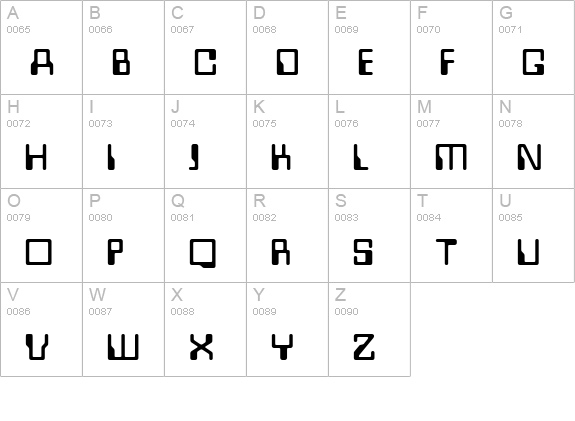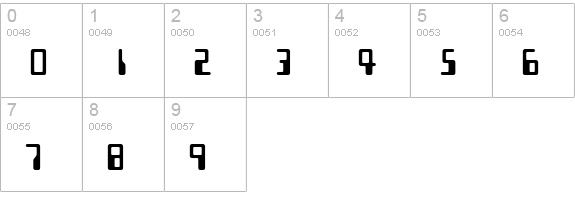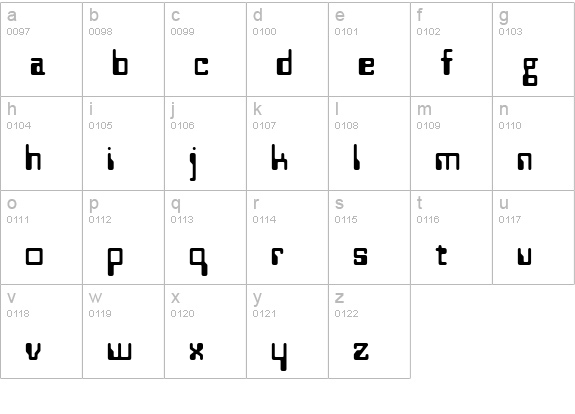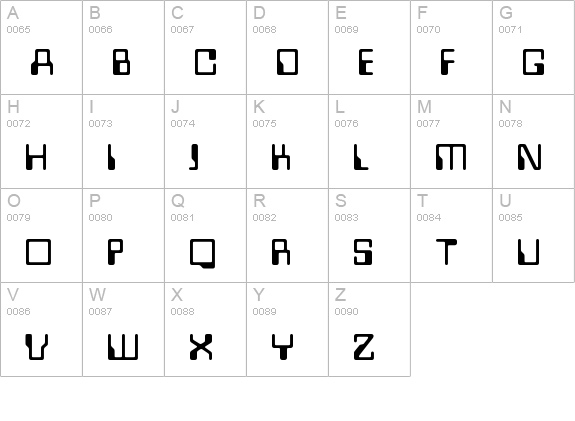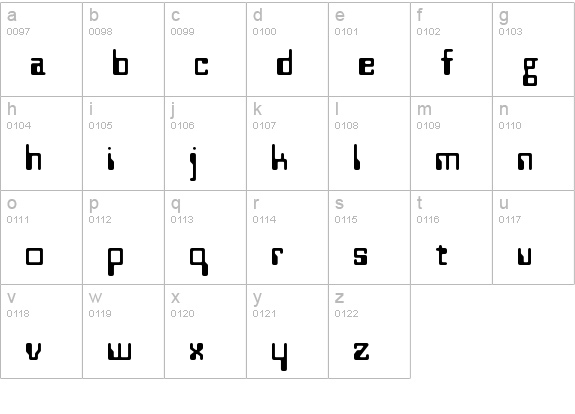
Westminster Font Details
Westminster font, a timeless and elegant typeface, brings a touch of sophistication to any design project. With its classic and refined letterforms, Westminster exudes a sense of tradition and refinement. Each letter is meticulously crafted, showcasing the perfect balance between sharp edges and gentle curves. This versatile font is suitable for a wide range of design applications, from elegant wedding invitations to professional business presentations. Its legibility and clarity make it an excellent choice for body text, while its bold and distinctive character shines in headlines and logos. One of the most appealing aspects of Westminster font is that it is freely available to download at FontsMarket.com. This means that designers and creatives can access and utilize this exceptional font without any financial constraints. Whether you're a professional designer or an aspiring artist, Westminster font is at your fingertips, ready to elevate your creative projects to new heights. With its timeless appeal and freely accessible nature, Westminster font is a valuable addition to any designer's toolkit. Its versatility, legibility, and elegance make it a go-to choice for a variety of design needs. Let the beauty of Westminster font captivate your audience and bring your creations to life. Download it now at FontsMarket.com and unlock the power of this remarkable typeface.